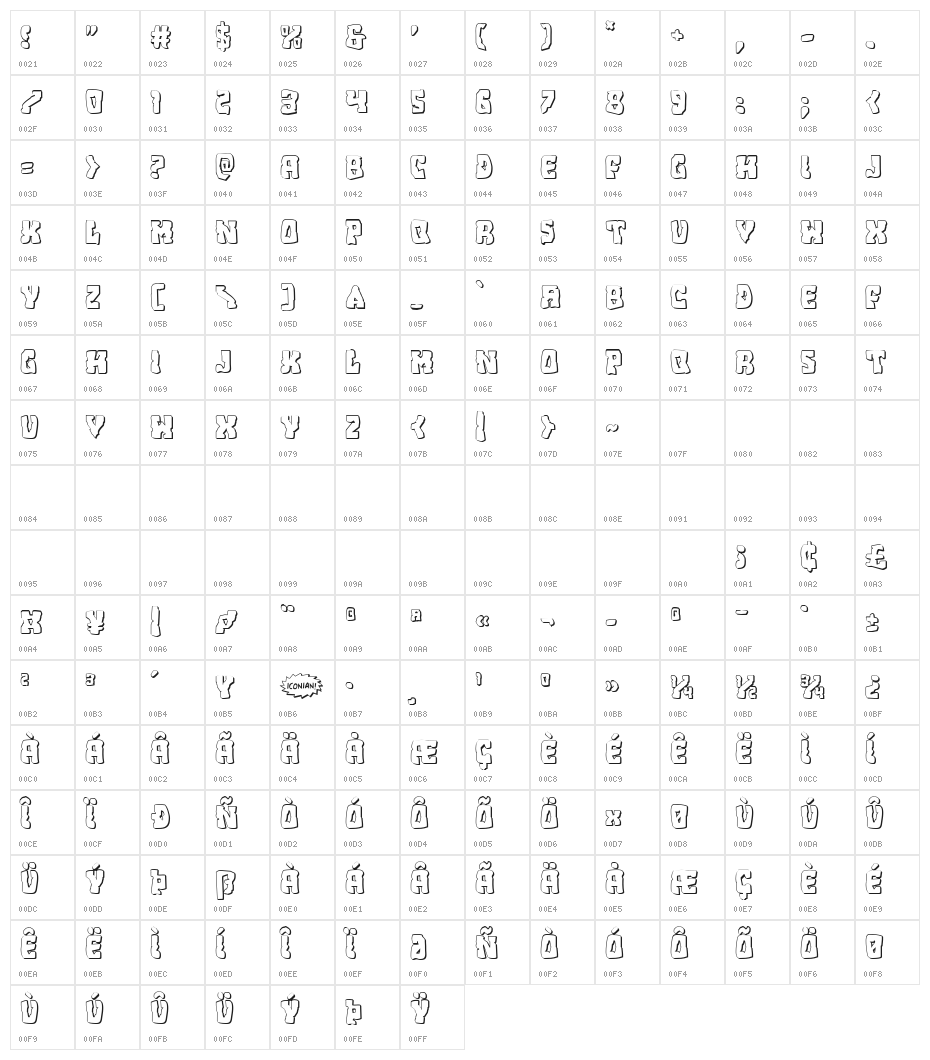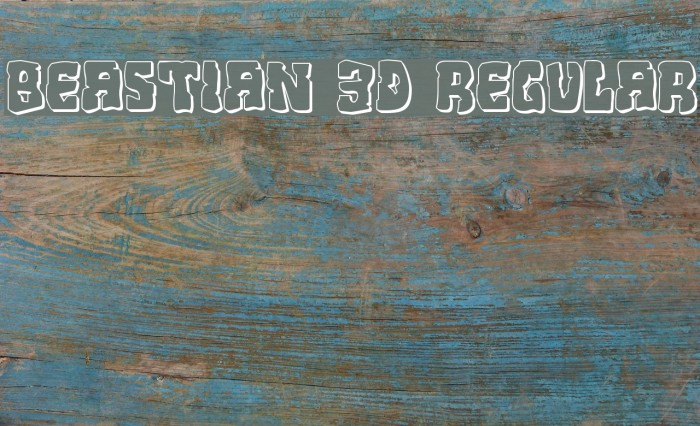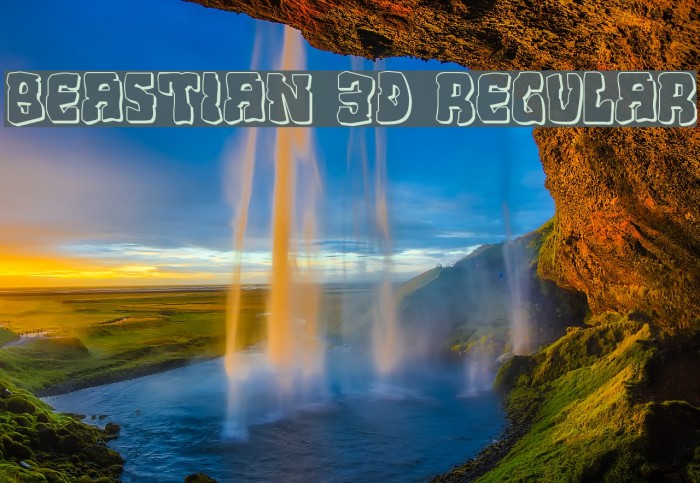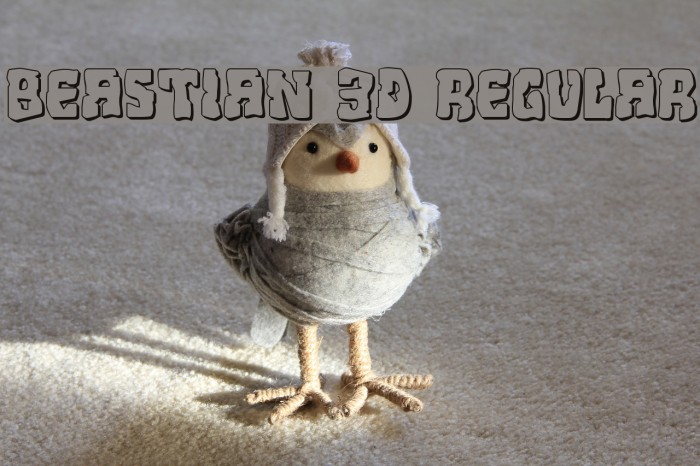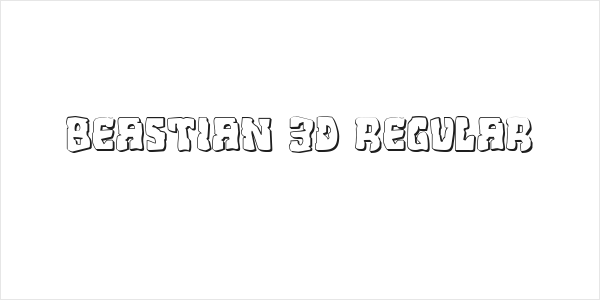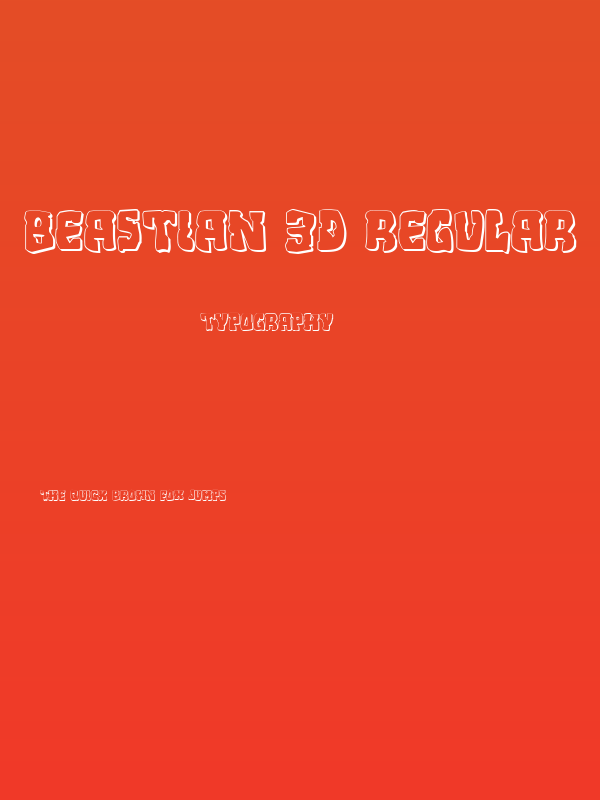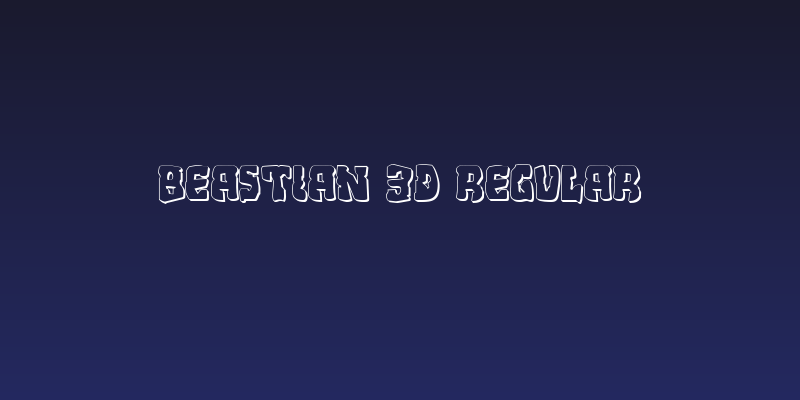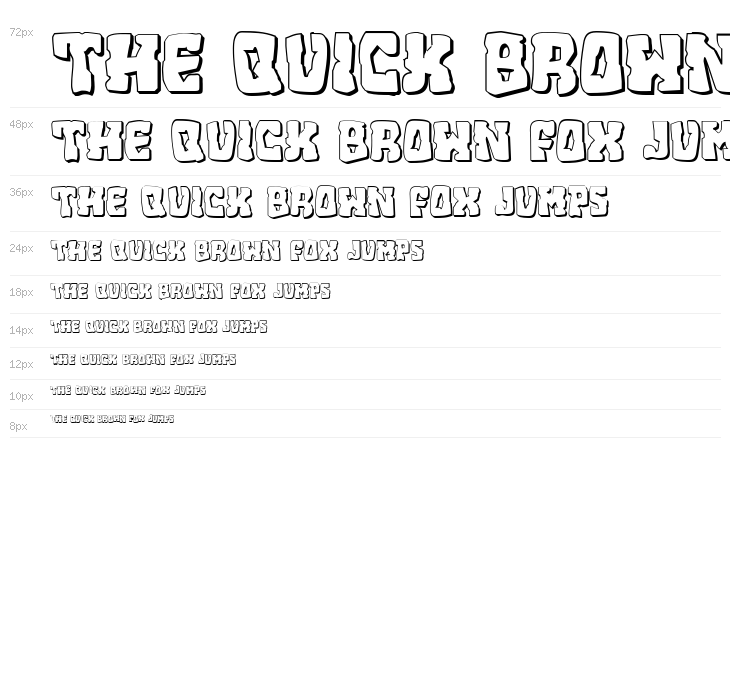
Beastian 3D Regular Font
Beastian 3D Regular Description
This font features a bold, three-dimensional style with a playful and chunky appearance. The characters are outlined, giving them a distinct shadow effect that enhances their 3D look. Each letter and number is designed with a sense of depth, making them stand out prominently. The font's style is reminiscent of graffiti or comic book lettering, with exaggerated curves and angles that add to its dynamic and energetic feel. The special characters maintain the same bold and playful style, ensuring consistency throughout the font set.
| Proposed Projects | Ideal for projects that require a fun and eye-catching design, such as children's book covers, comic books, posters, and playful branding materials. |